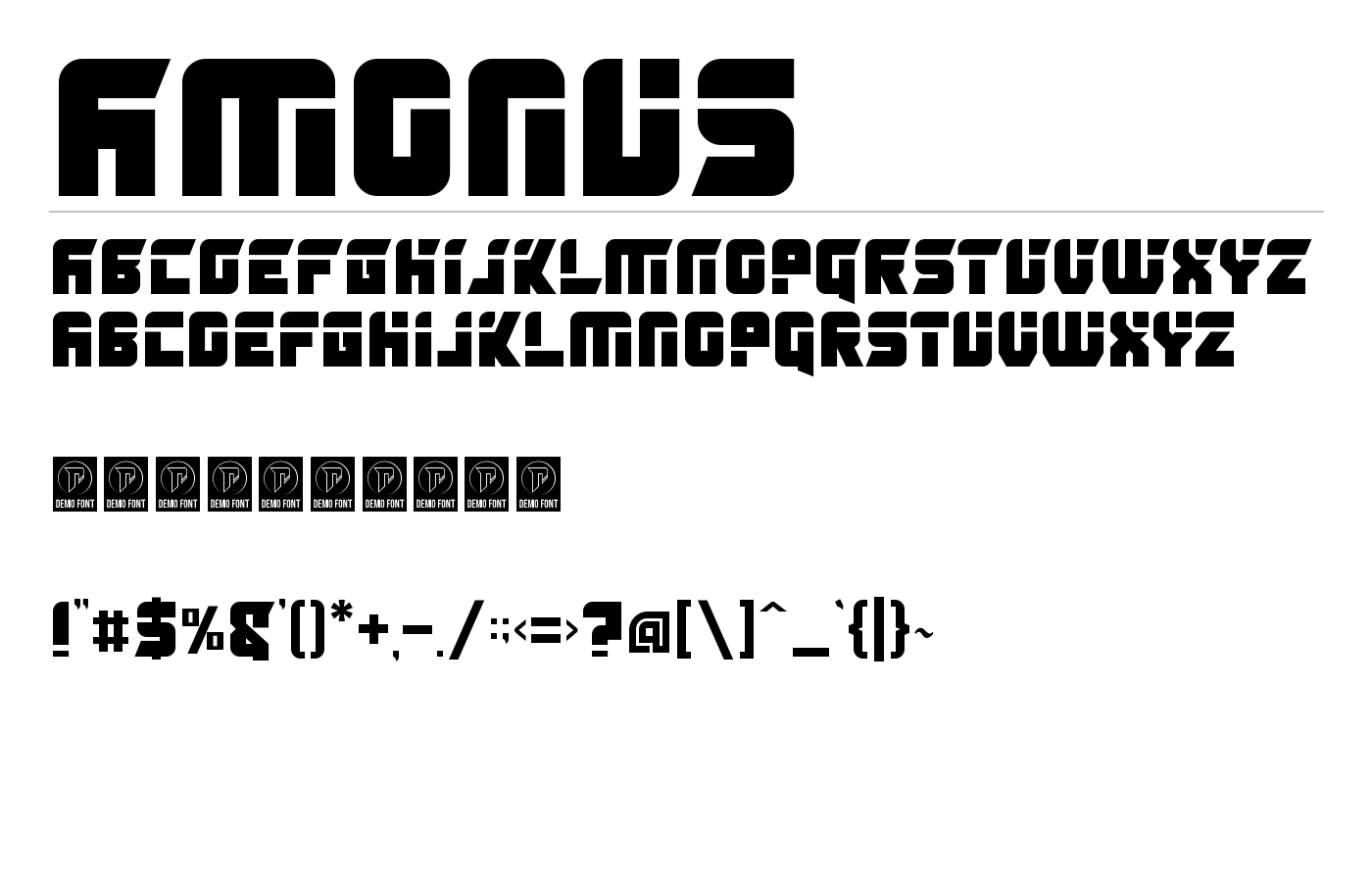
Amonus is a bold, geometric sans serif font characterized by its strong, blocky letterforms with sharp angles and consistent heavy weight. Its wide and condensed proportions combined with high contrast between thick and minimal stroke details create a modern, futuristic vibe perfect for eye-catching headlines, tech branding, and edgy editorial design. This font’s distinctive style adds a striking, contemporary personality that works best in display use where impact is key.
Amonus Font
About Amonus Font